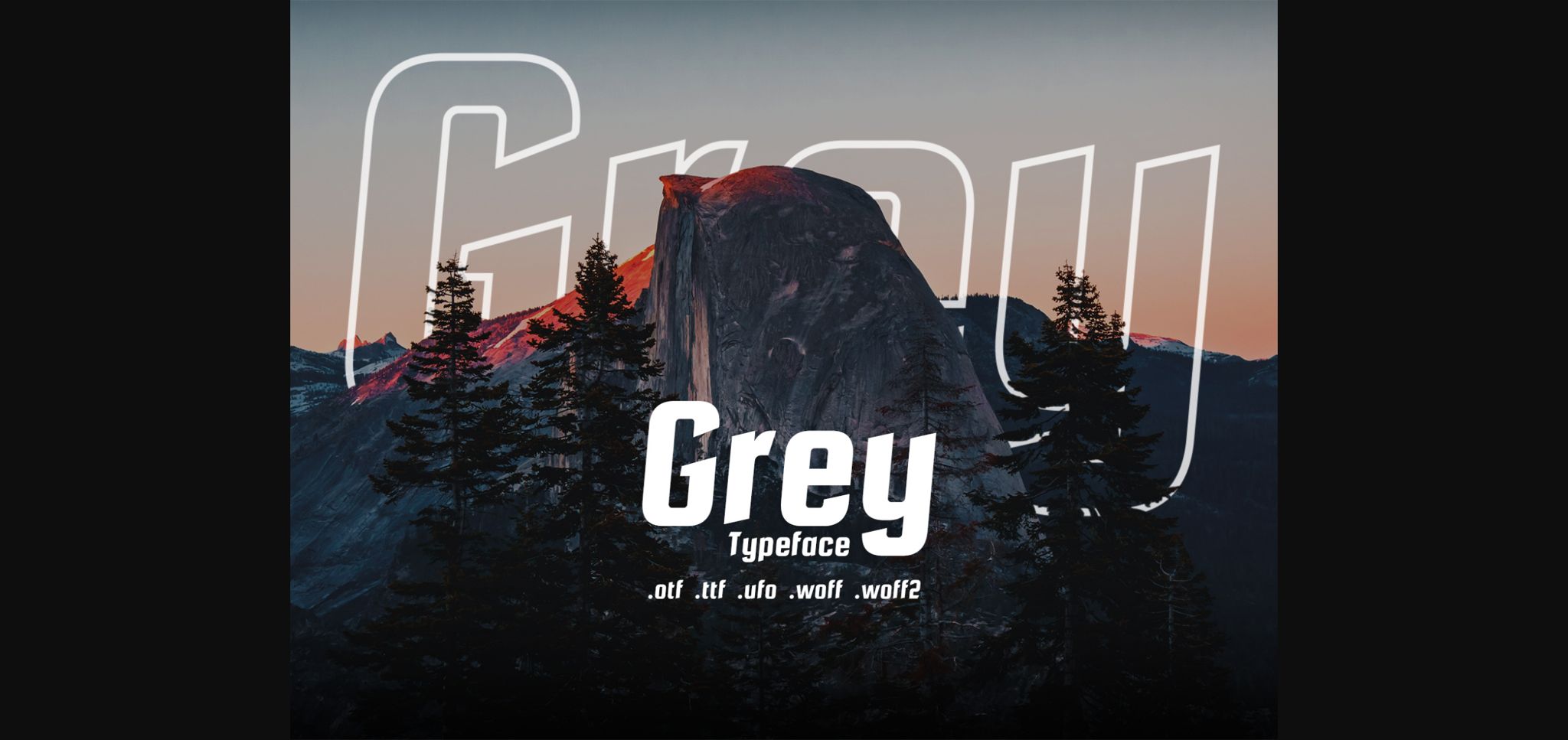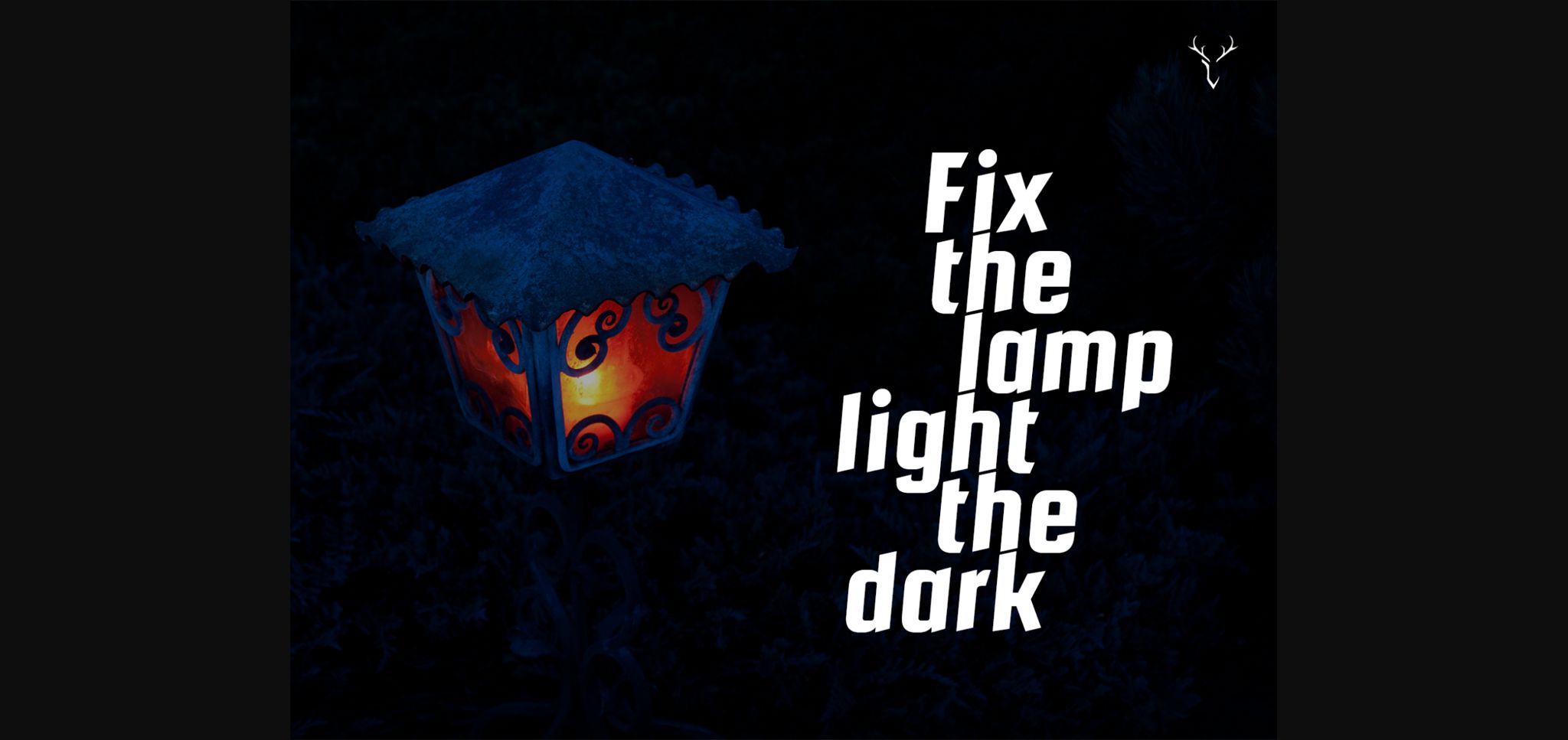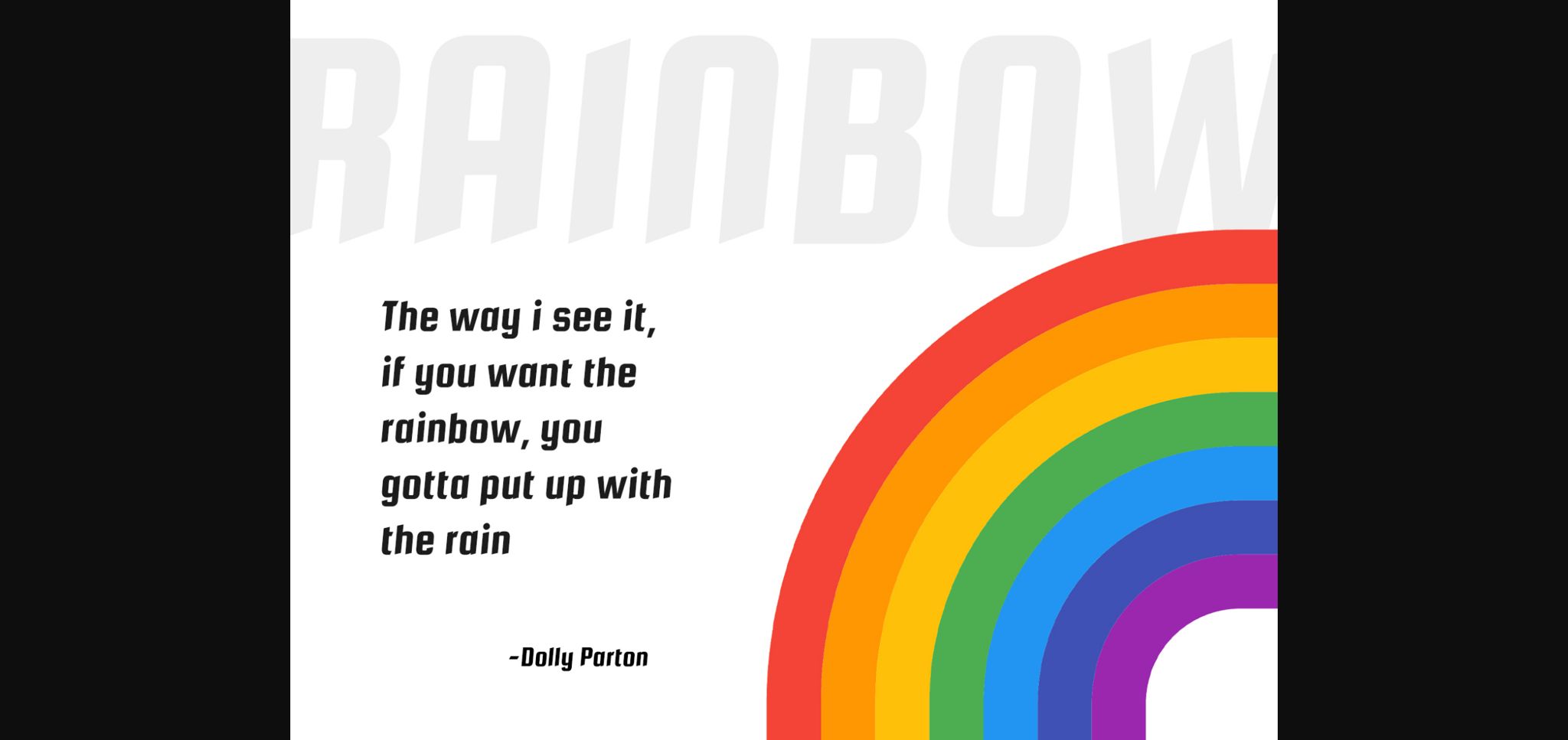
Grey Font
About Grey Font
Grey is a modern and unique sans serif font. This typeface is perfect for headlines, branding, logotypes and much more. It is also suitable for creating outstanding logos, promotional content and marketing graphics that can really grab anyone’s attention!